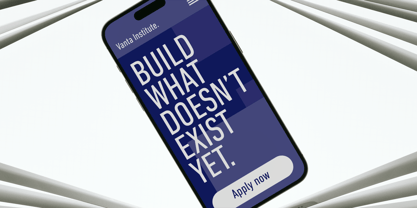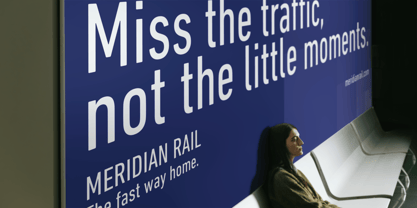
DIN® Next
by Monotype
The DIN Next Font Family was designed by Akira Kobayashi, Sandra Winter and published by Monotype. DIN Next contains 35 styles and family package options.
DIN has always been the typeface you root for—the one you wanted to use but just couldn’t bring yourself to because it was limited in its range of weights and widths, rendering it less useful than it could be. The century-old design has proven to be timeless, but modern use cases demanded an update, which resulted in DIN Next—a versatile sans serif family that will never go out of style. This classic design turned modern must-have includes seven weights that range from light to black, each of which has a complementary italic and condensed counterpart. The family also included four rounded designs, stretching the original concept’s range and core usability. DIN Next also boasts a suite of small capitals, old style figures, subscript, superscript and several alternate characters. A quintessential 20th-century design, its predecessor DIN was based on geometric shapes and was intended for use on traffic signs and technical documentation. Akira Kobayashi’s update made slight changes to the design, rounding the formerly squared-off corner angles to humanize the family. Rooted in over 100-years of history, it’s safe to say that there will always be a demand for the DIN design, and thanks to DIN Next, now it’s as usable as it is desired. Wondering what will pair with it perfectly? Check out Agmena™, Bembo® Book, Cardamon™, Joanna® Nova, FF Quadraat® and Quitador™.
Designers: Akira Kobayashi, Sandra Winter
Foundry: Monotype